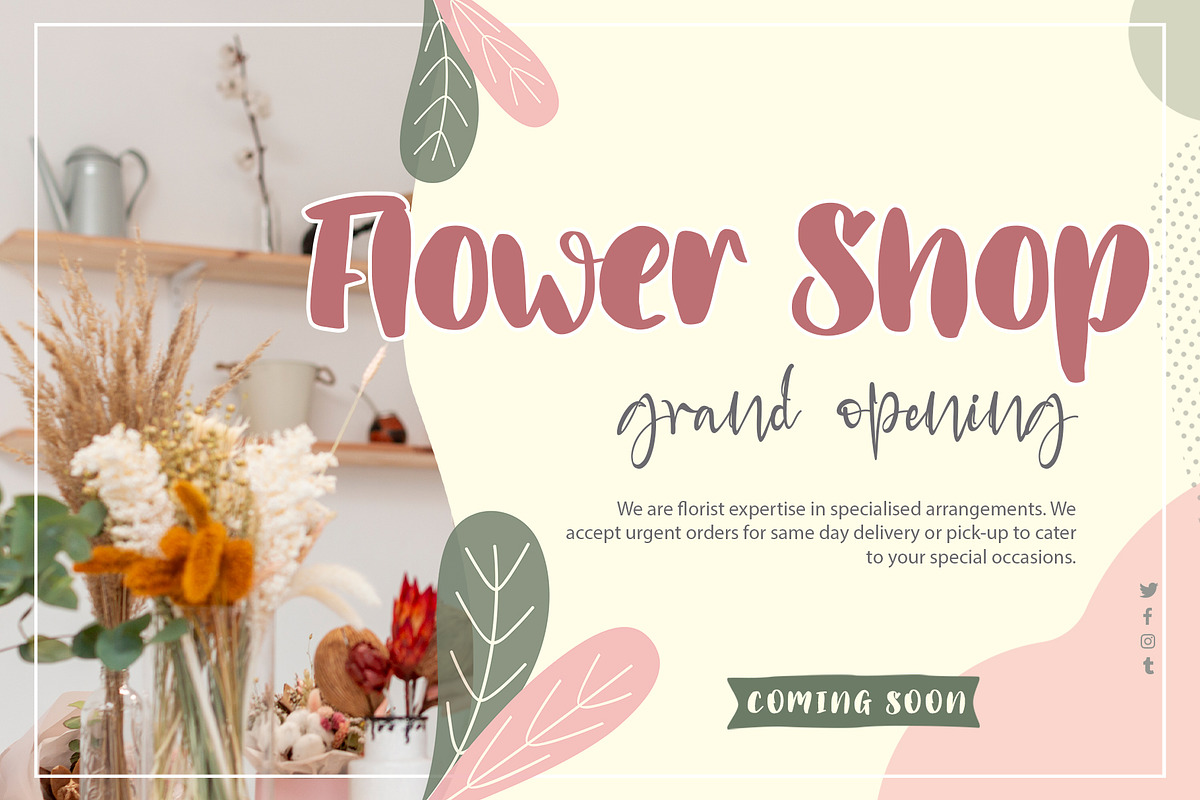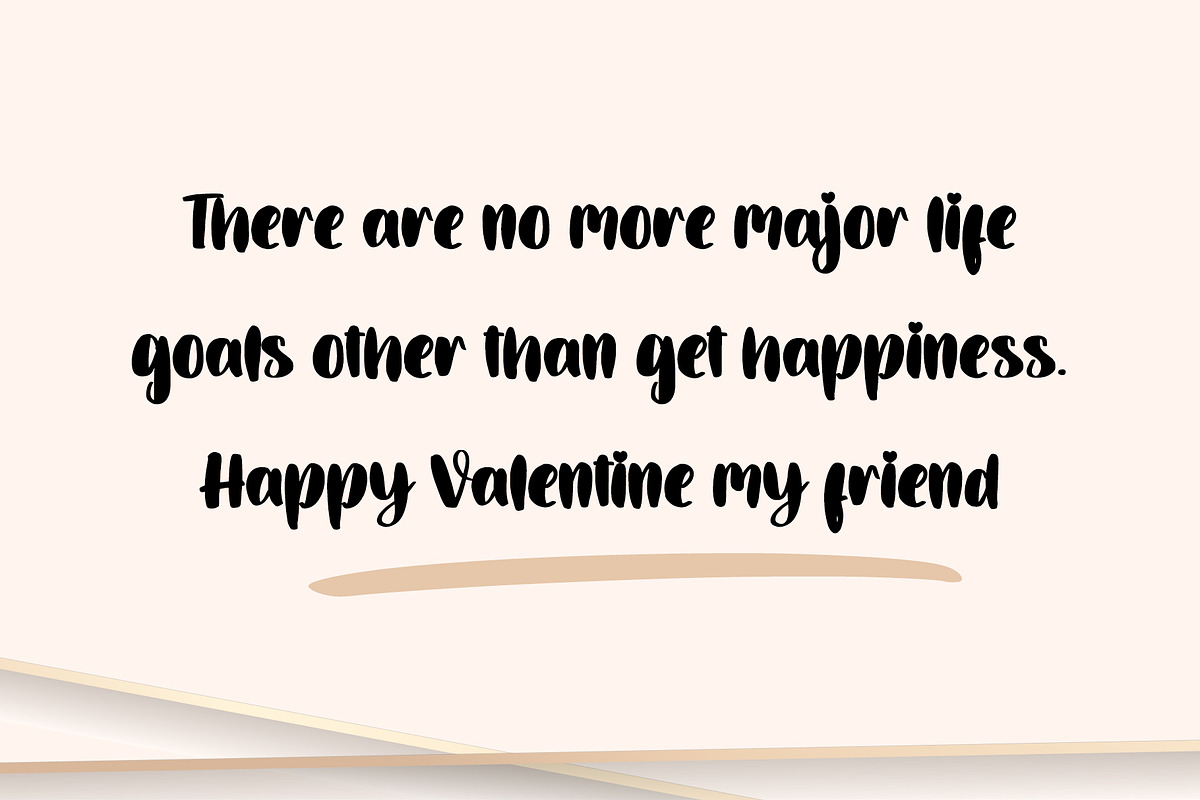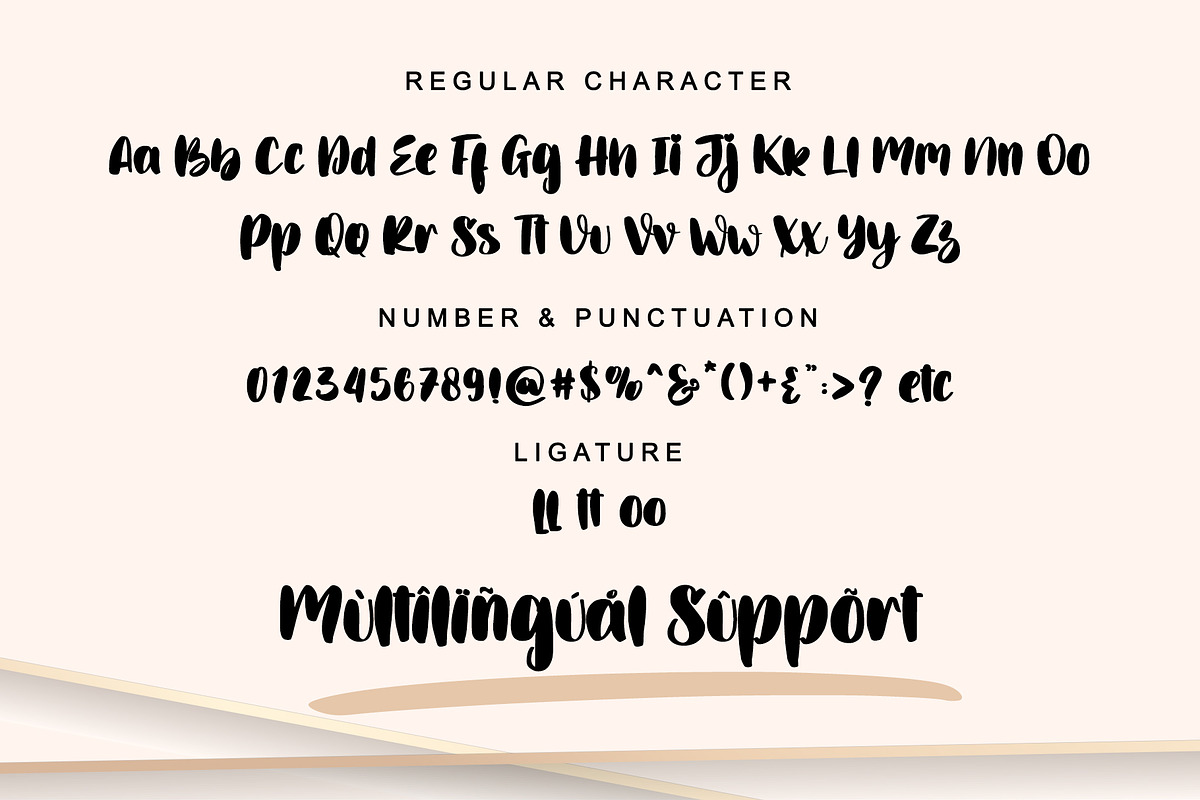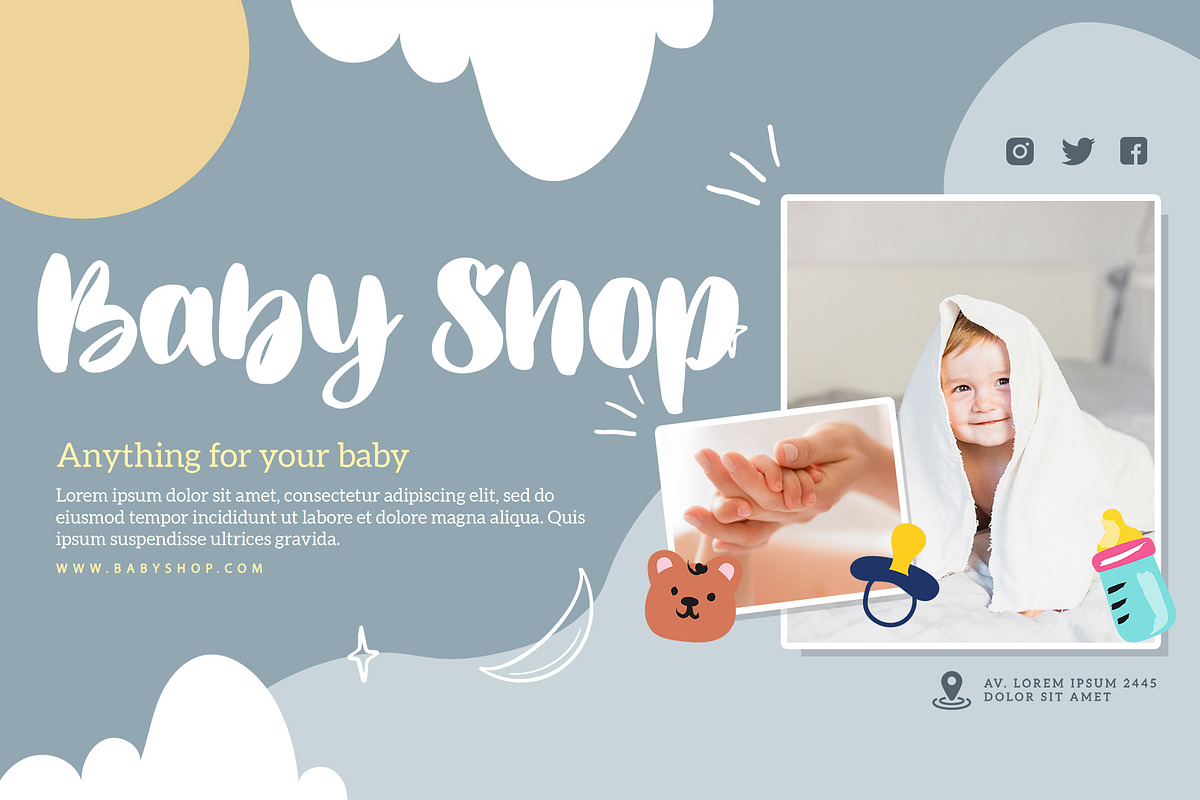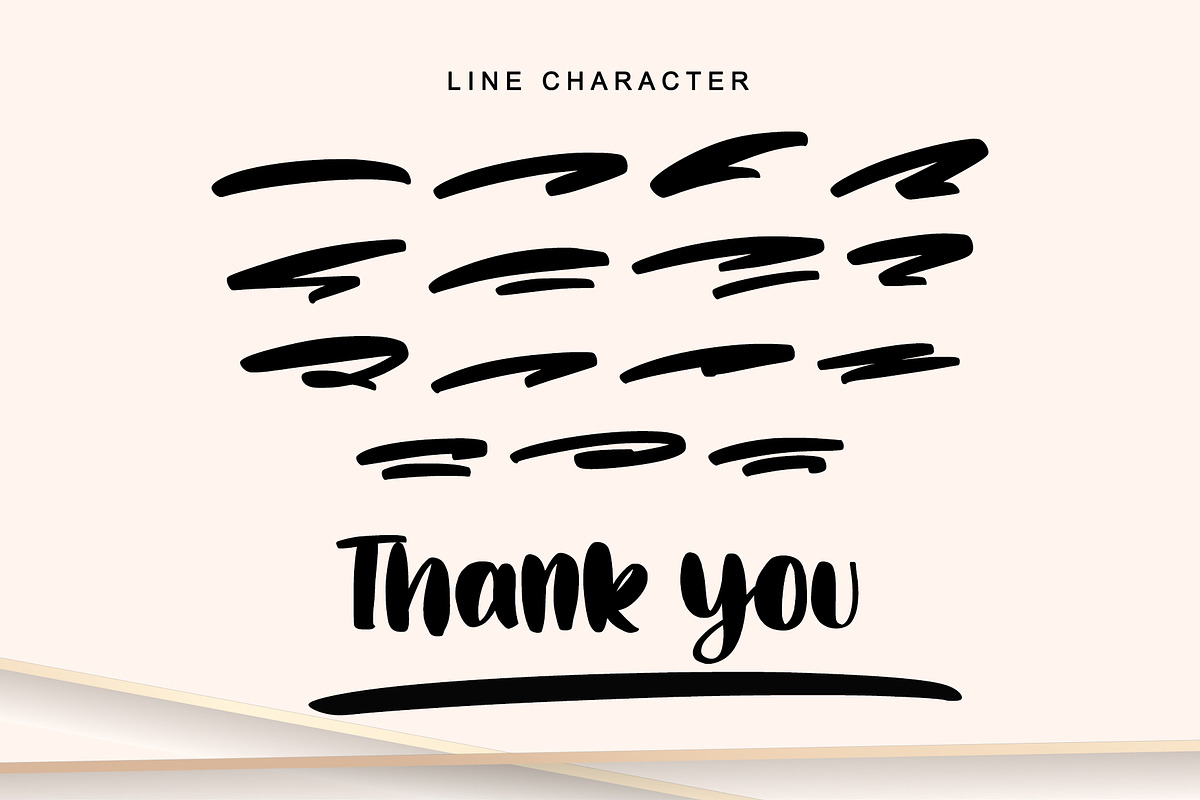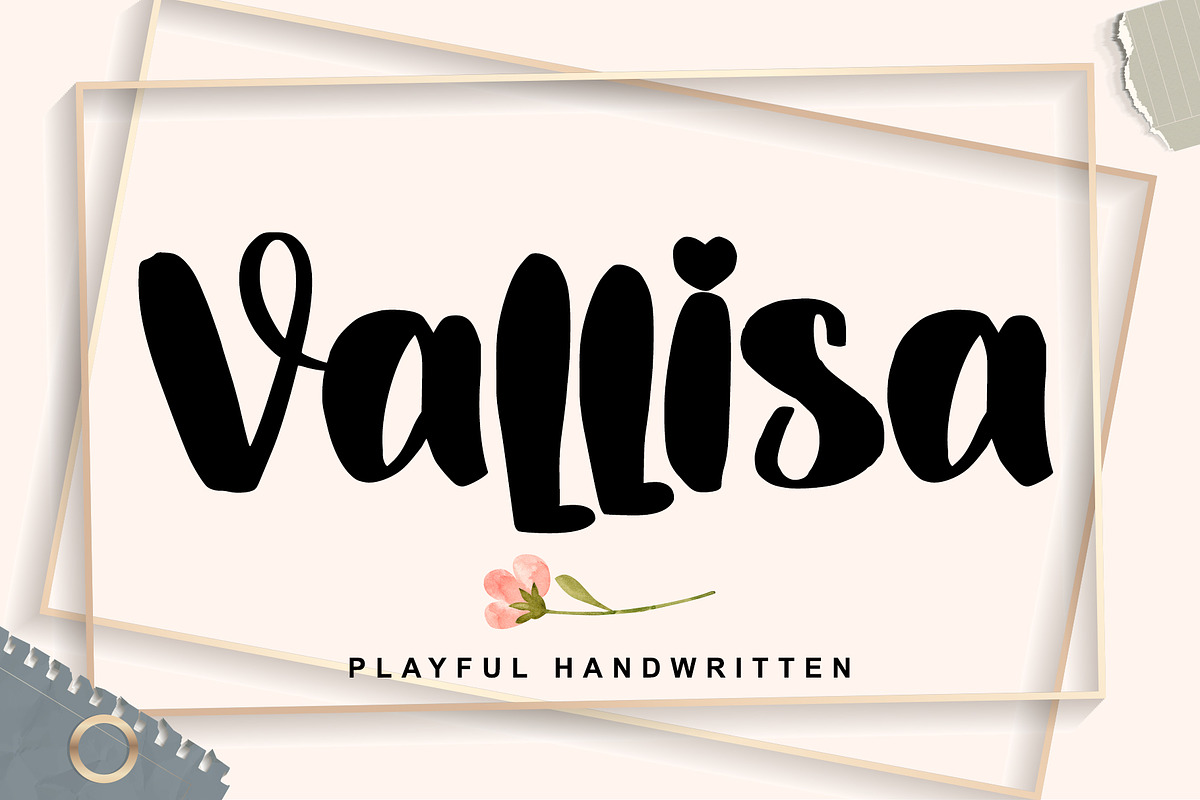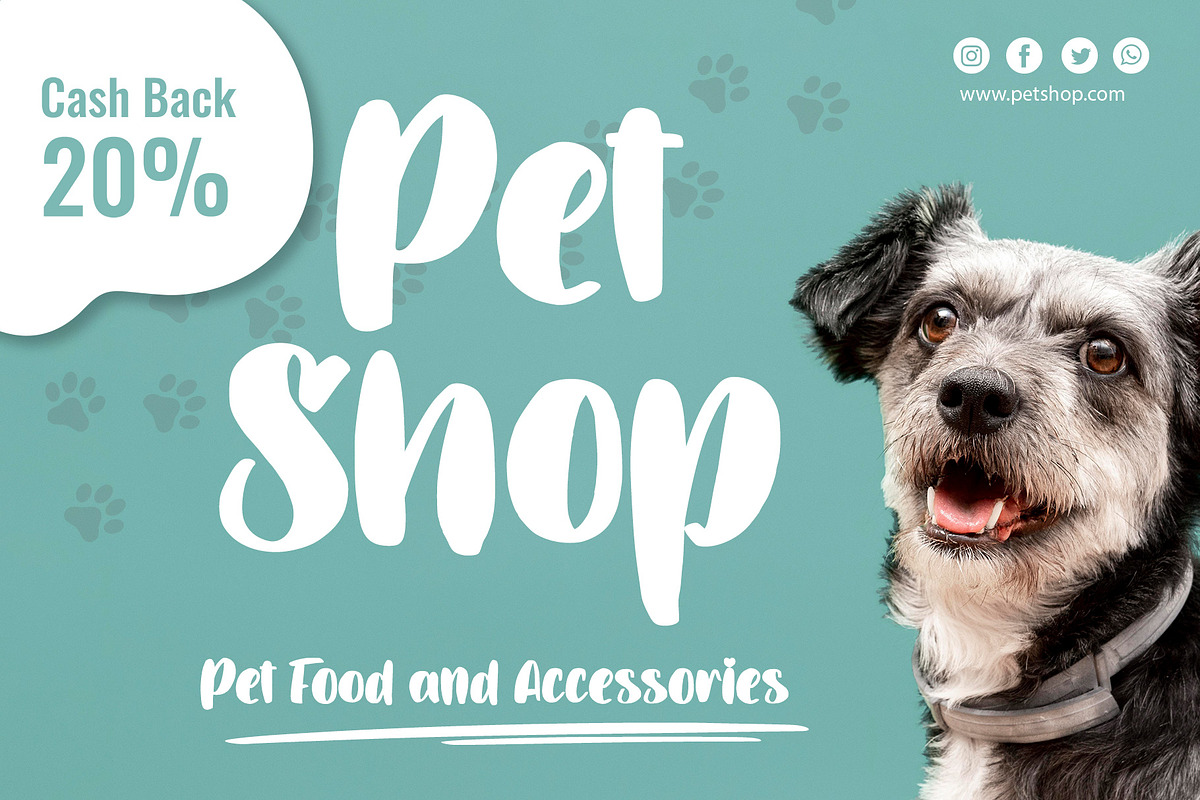
Vallisa
Vallisa is a cute and sweet handwritten font with an incredibly friendly feel. This font will turn any creative idea into a true piece of art! This font is PUA encoded which means you can access all of the cute glyphs with ease!
- Support multilingual; ä ö ü Ä Ö Ü ß ¿ ¡
- lowercase and uppercase letters